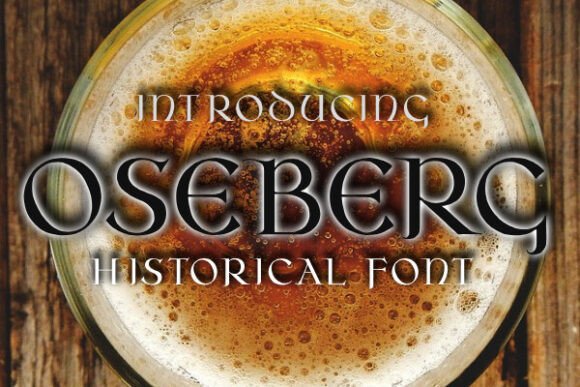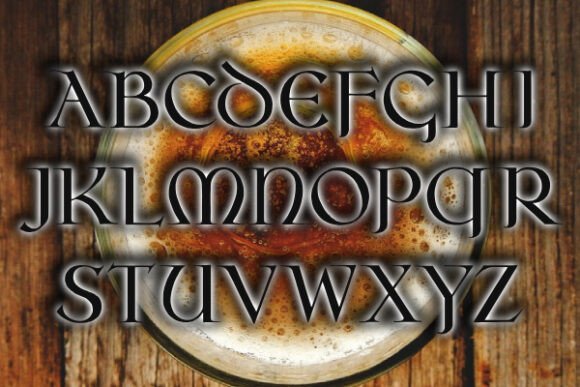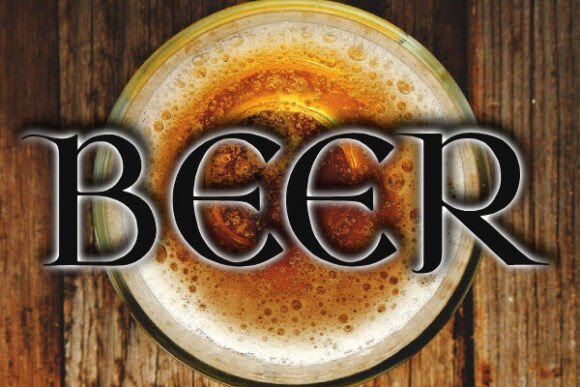
Oseberg Font: A Bold Gothic Display Font for Creative Logo Design
About the Oseberg Font
Elevate your designs with Oseberg Font, a font that combines sophistication with readability. Oseberg is a stylish, gothic-inspired font that embodies the essence of historical and medieval aesthetics. This font draws its influence from ancient Nordic and Viking-era inscriptions, giving it a bold and distinguished appearance. Ideal for businesses or products related to history, mythology, or fantasy, such as escape rooms, themed restaurants, or artisan products.
Oseberg’s strong verticality and sharp serifs make it ideal for headlines, logos, and short, impactful text on packaging or posters. It excels in conveying authority and a sense of history, but its intricate details become less legible in smaller sizes or extended body text. Avoid using it for lengthy paragraphs or user interfaces where readability is paramount.
Oseberg’s overall mood is serious and dramatic, lending itself to brands projecting strength, heritage, or a touch of the mysterious. It is less suitable for projects requiring a lighthearted or playful feel.
Oseberg Font Usage Examples
Oseberg Font Example